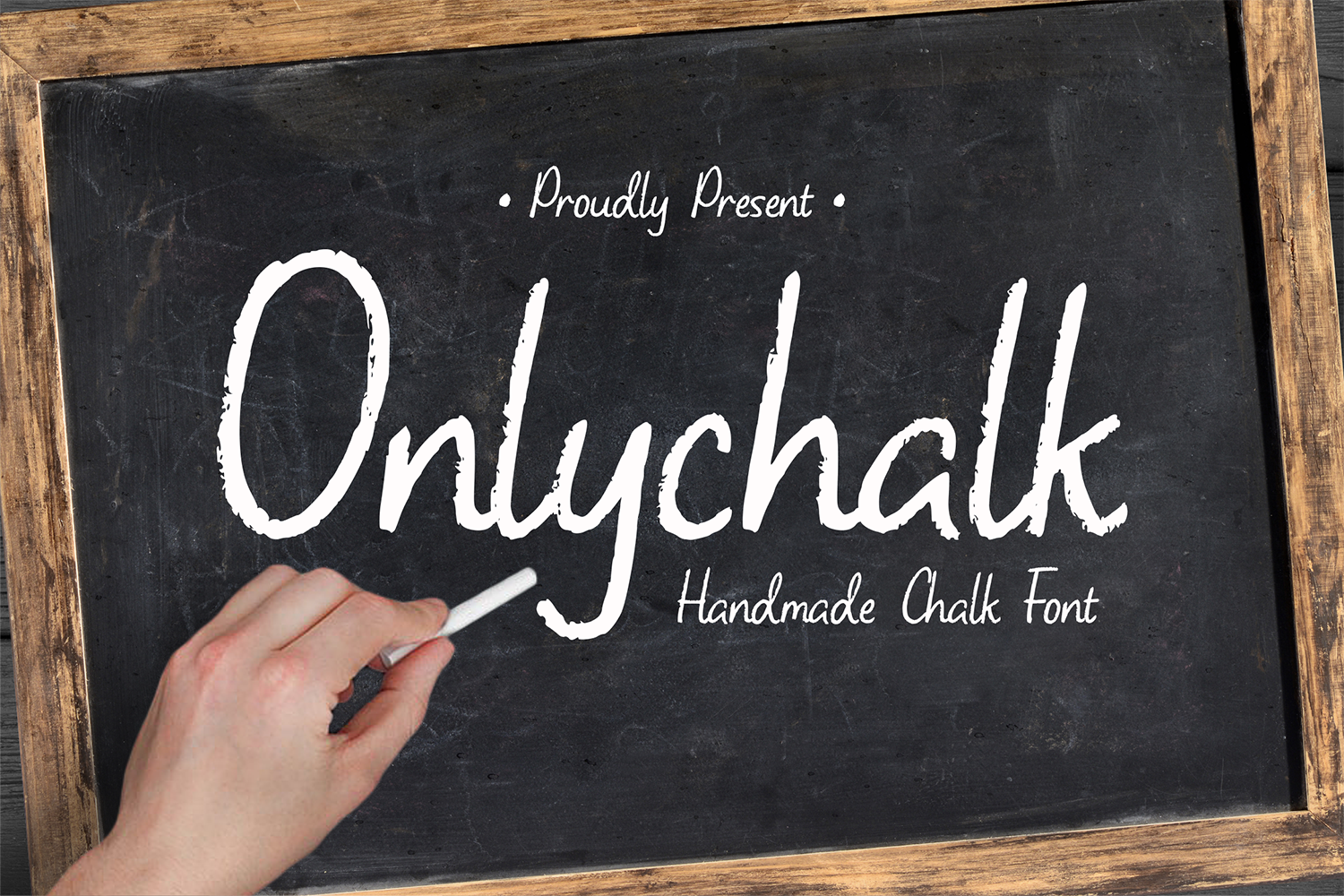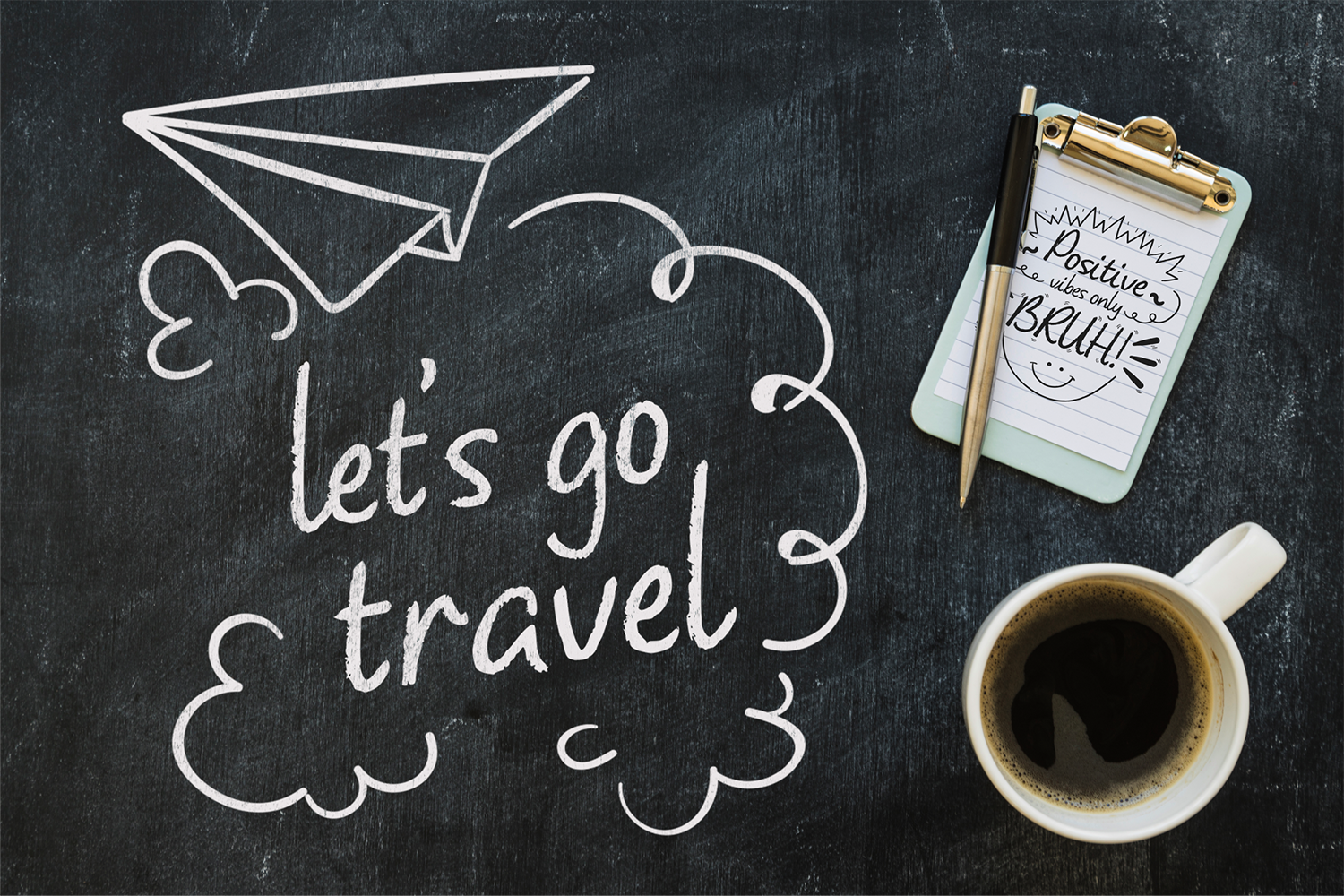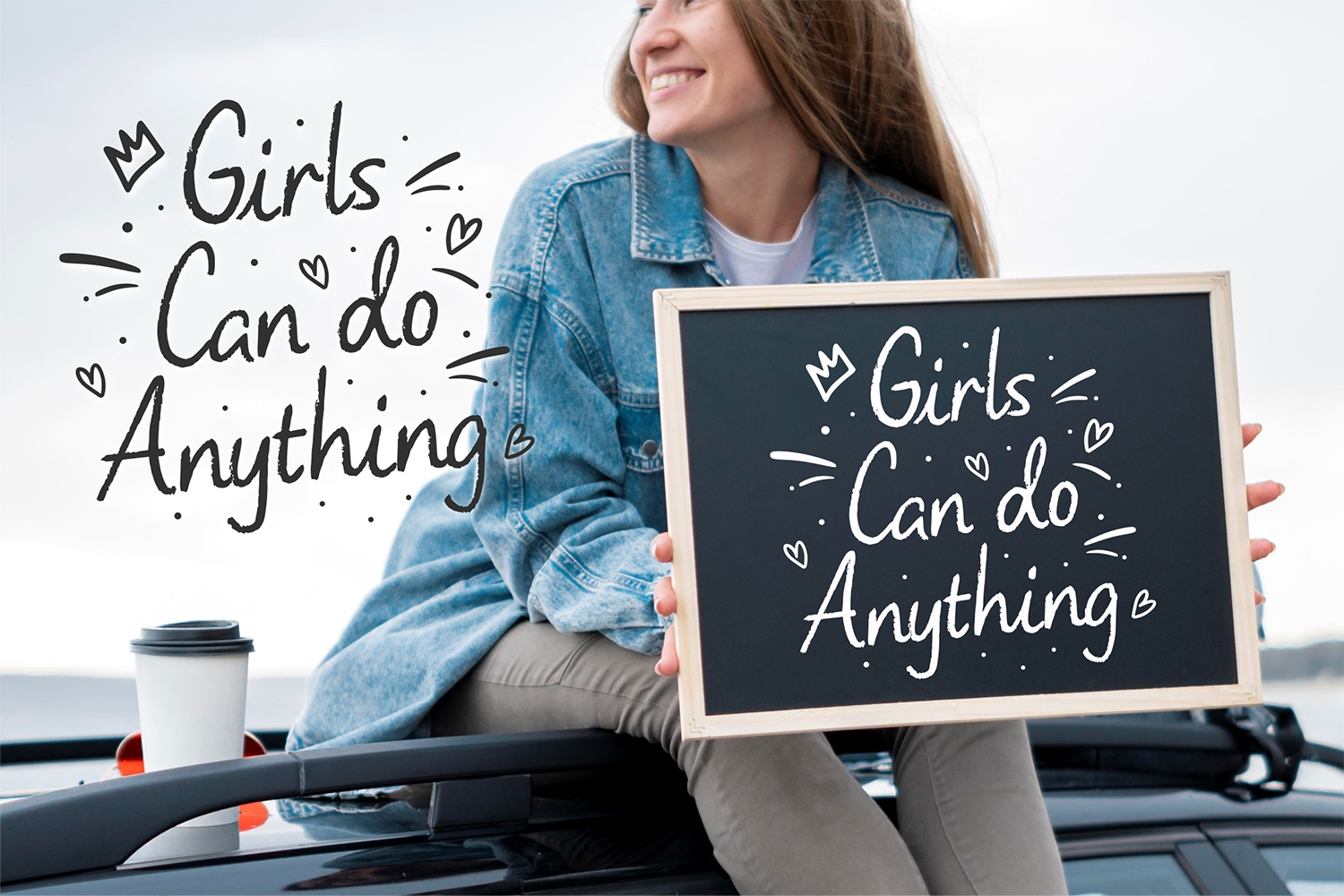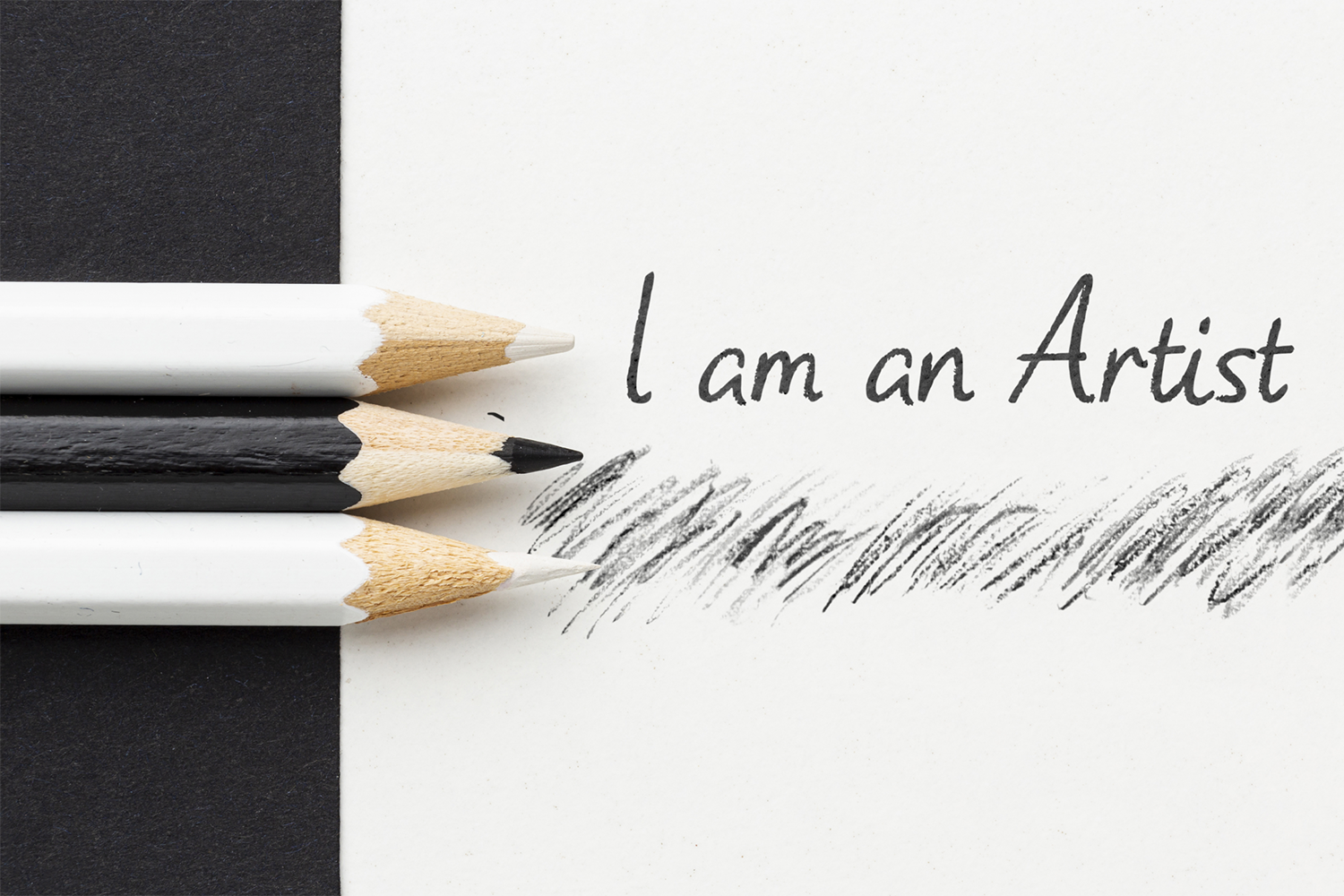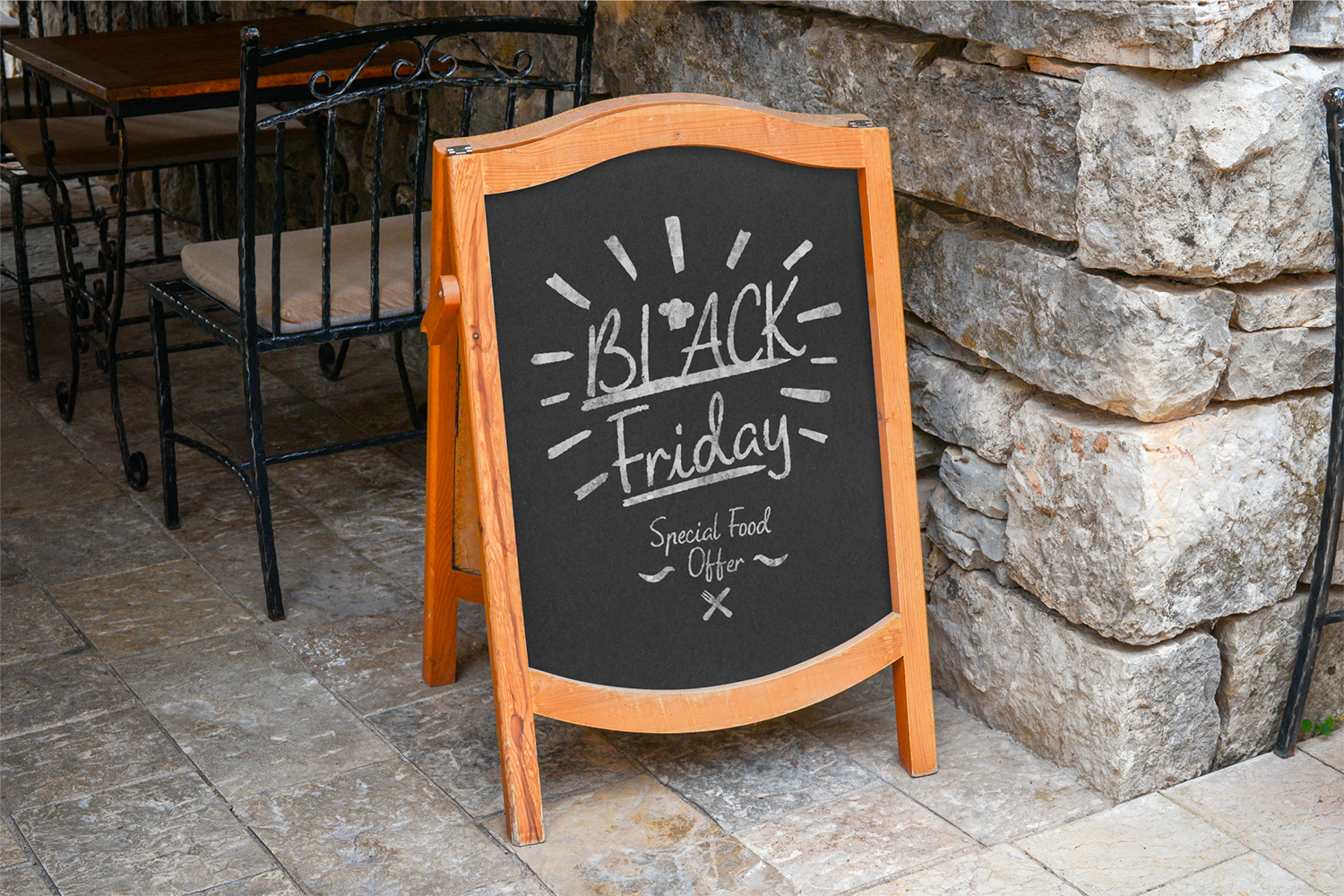
Onlychalk Free Font
Onlychalk Free Font stands as a versatile and uncomplicated handwritten font, skillfully crafted to secure a special place among your preferences. Balancing its elegant calligraphic roots with a modern and rejuvenating touch, this font is primed to capture your affection and elevate your projects to new heights of excellence. This free typeface was designed by a talented Glorytype Studio. If you like it don’t forget to check out the full version.